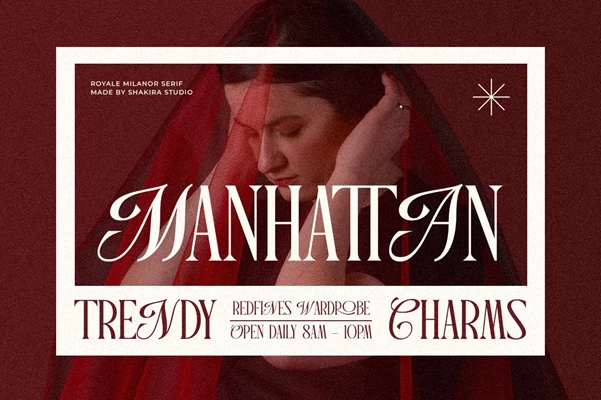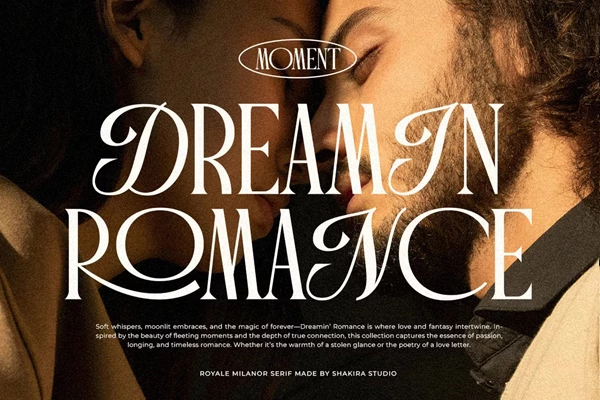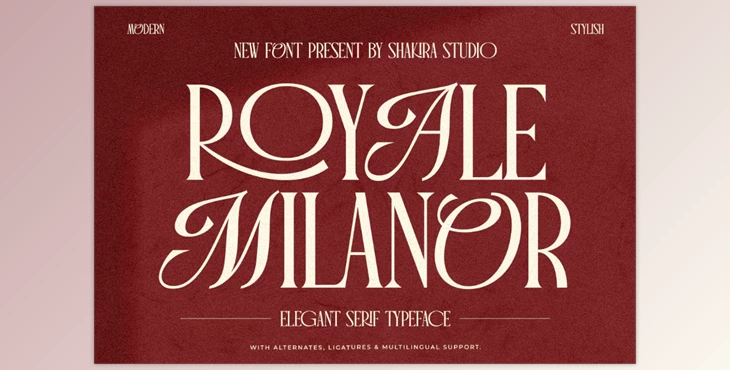
Royale Milanor Font:
Royale Milanor boasts fantastic luxury due to its having a serif typeface. Its design is meticulously crafted, which allows this font to be used in formal and even modern styling interfaces. It is a font that works perfectly for labels and invites. This font can also be used for fashion editorials, meaning it can be employed wherever the needs arise. This font enables its users to customize it to add a blend of elegance and refinement in meeting any project, which makes it versatile. That said, it is entirely software-compliant, making it stand out even more.
Some great features of Royale Milanor Font:
- Support for diverse languages is also available as Royale Milanor comes with a set of multilingual characters.
- Royale Milanor is a versatile font meaning it has enhanced Opentype characters with variations in stylistics such as alternates or even ligatures.
- With PUA Encoding every character can be accessed freely which makes freely using characters without the need for special design tools.
Afrikaans, Albanian, Catalan, Croatian, Czech, Danish, Dutch, English, Estonian, Finnish, French, German, Hungarian, Icelandic, Italian, Lithuanian, Maltese, Norwegian, Polish, Portuguese, Slovenian, Spanish, Swedish, Turkish, and Zulu are some of the languages made easier with Royale Milanor.